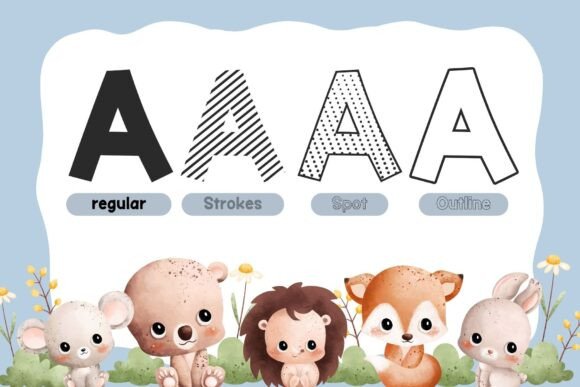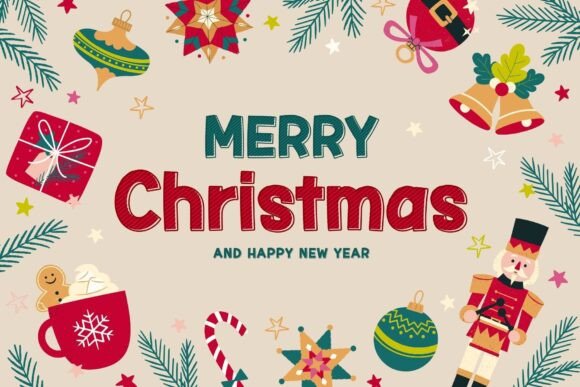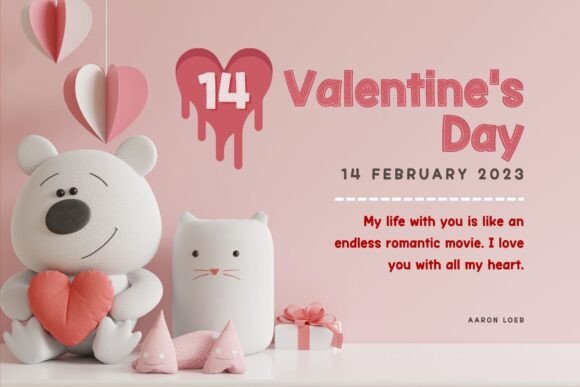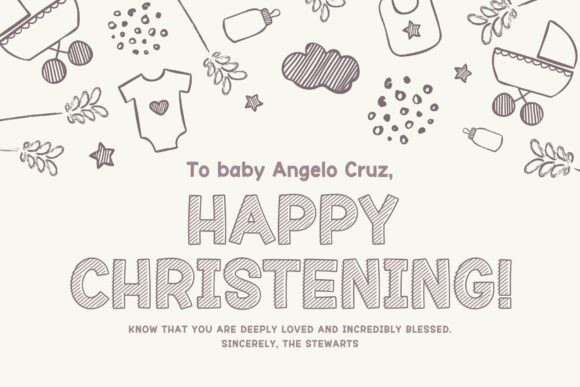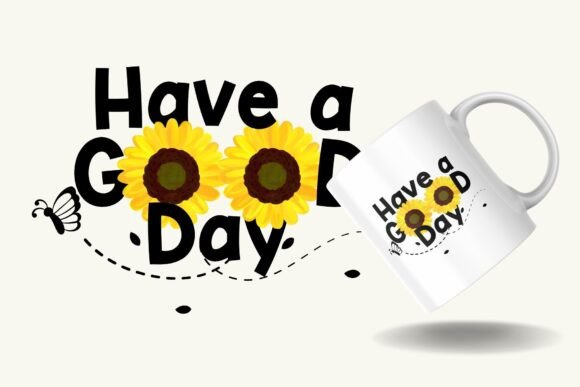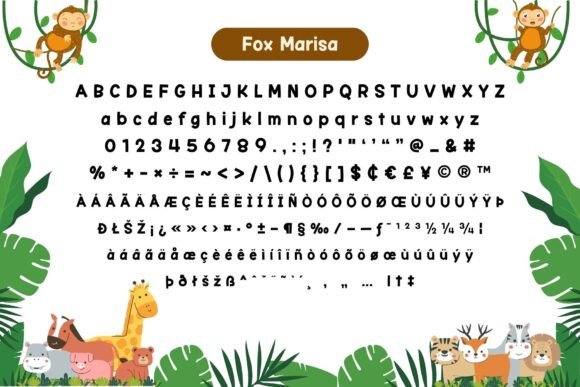
Introduction to Fox Marisa Font
Fox Marisa is a 4 style font that cool cute and playful display font that adds a captivating and energetic touch to your designs.
Perfect for use in publications, menus, logos, business cards, or even printed on t-shirts, these fonts exude uniqueness Its main feature is its vibrant and expressive design, allowing you to create attention-grabbing headlines, t-shirt typography, banners, product labels, and more.
Key Features of Fox Marisa Font